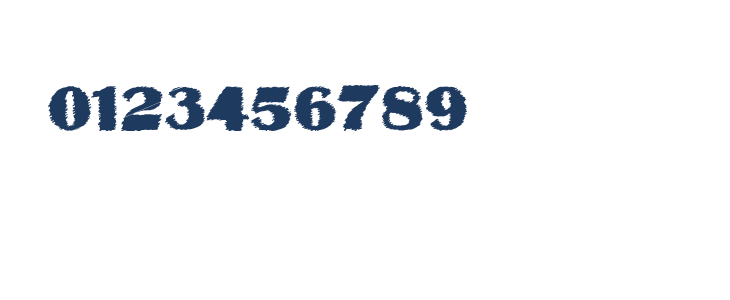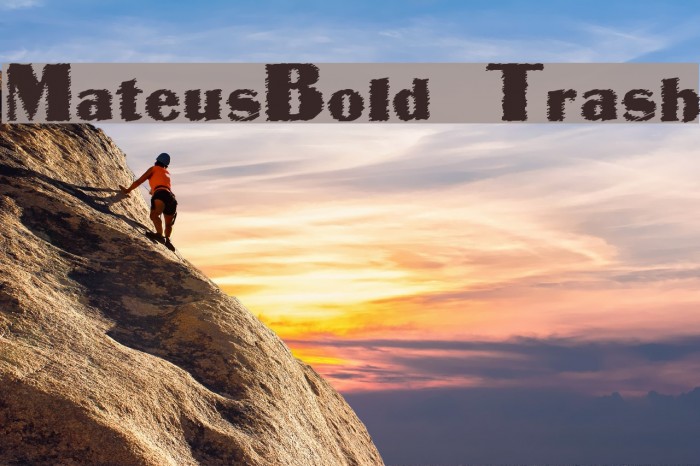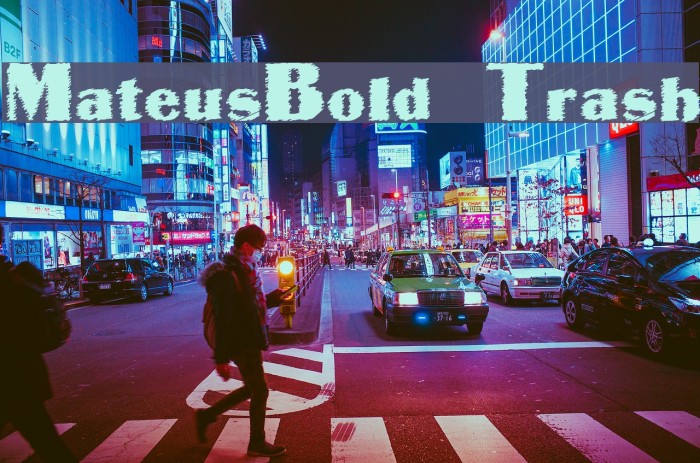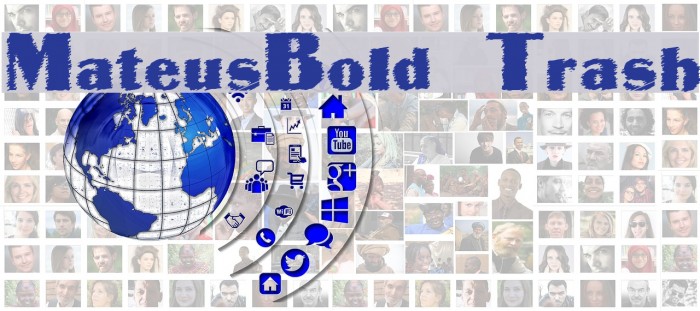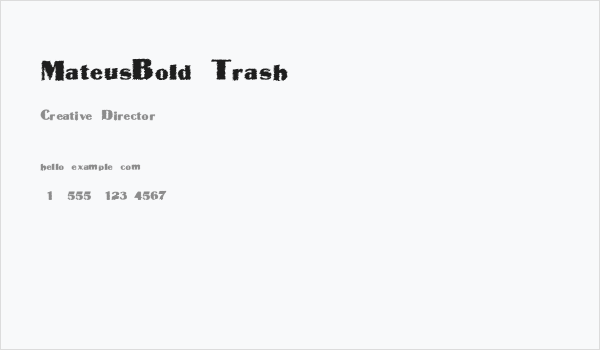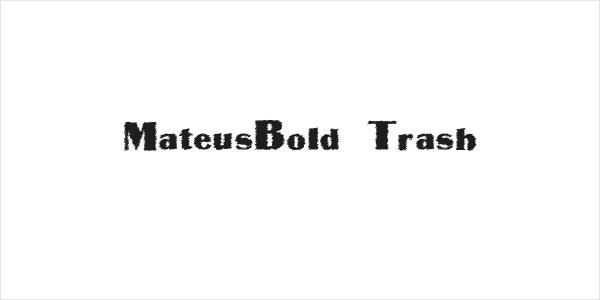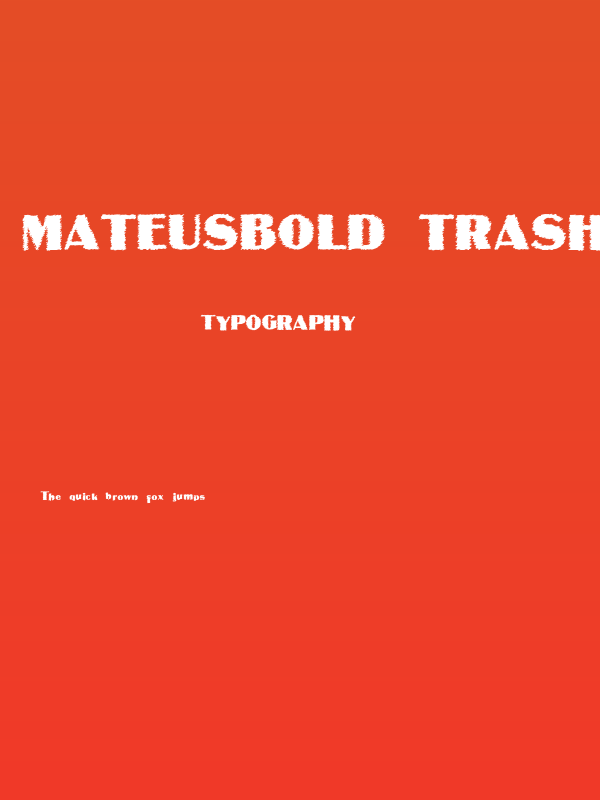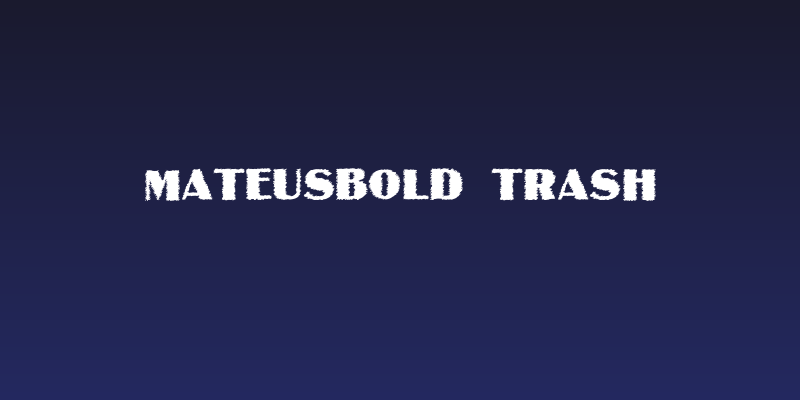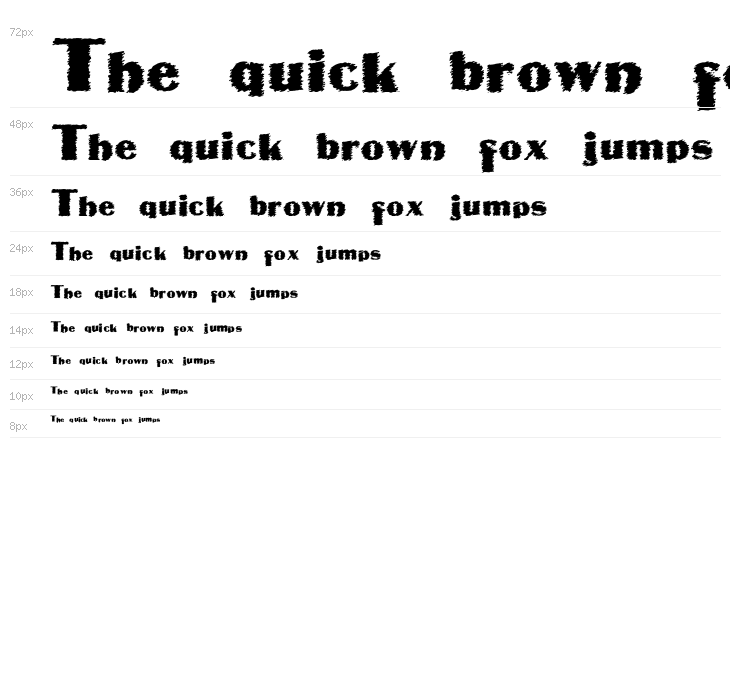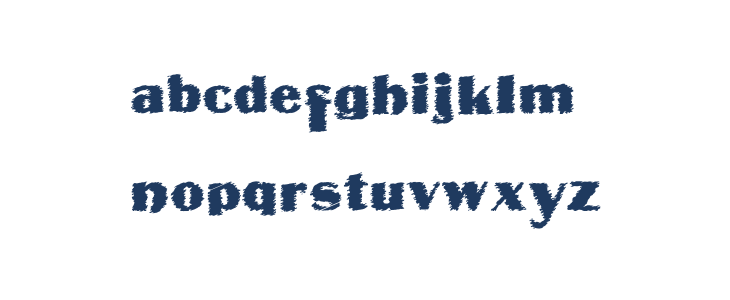
MateusBold Trash Font
MateusBold Trash Description
This font features a bold and rugged design with a distressed texture that gives it a unique, edgy appearance. The uppercase and lowercase letters are uniformly bold, with a rough, almost torn edge that adds a sense of movement and dynamism. The numerals and special characters follow the same stylistic approach, ensuring consistency across all glyphs. This font's distinctive style makes it stand out, ideal for projects that require a strong visual impact. The characters are well-proportioned, maintaining readability despite the textured effect.
| Proposed Projects | Ideal for posters, album covers, branding materials, and any project needing a bold, edgy look. |